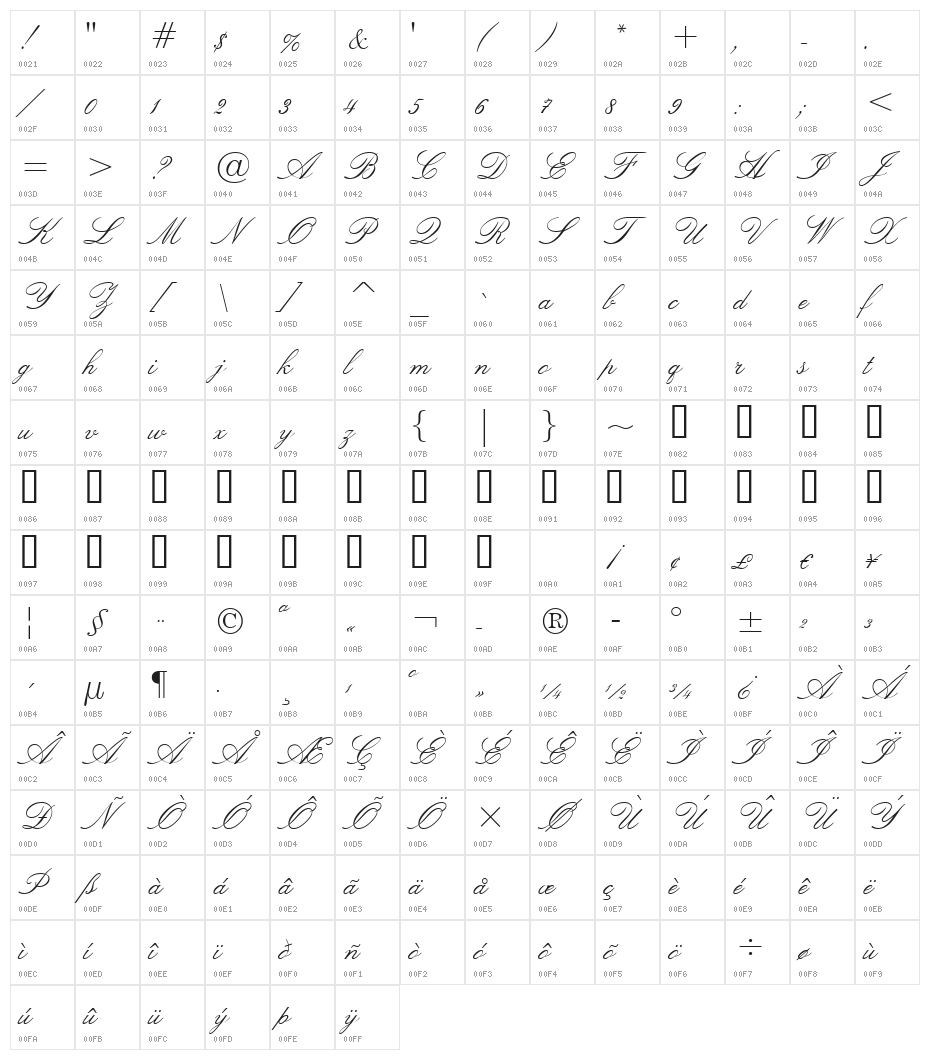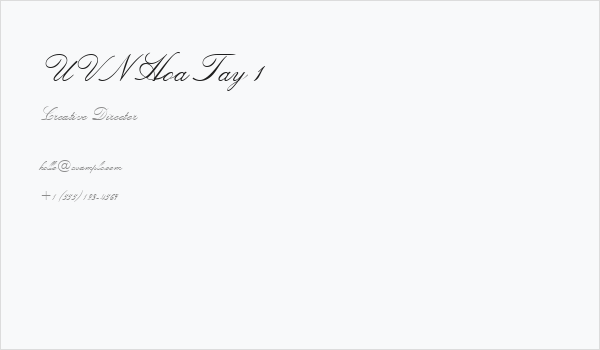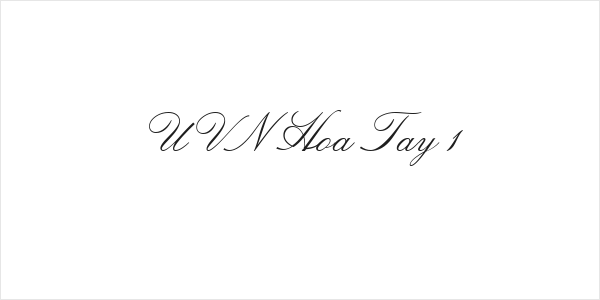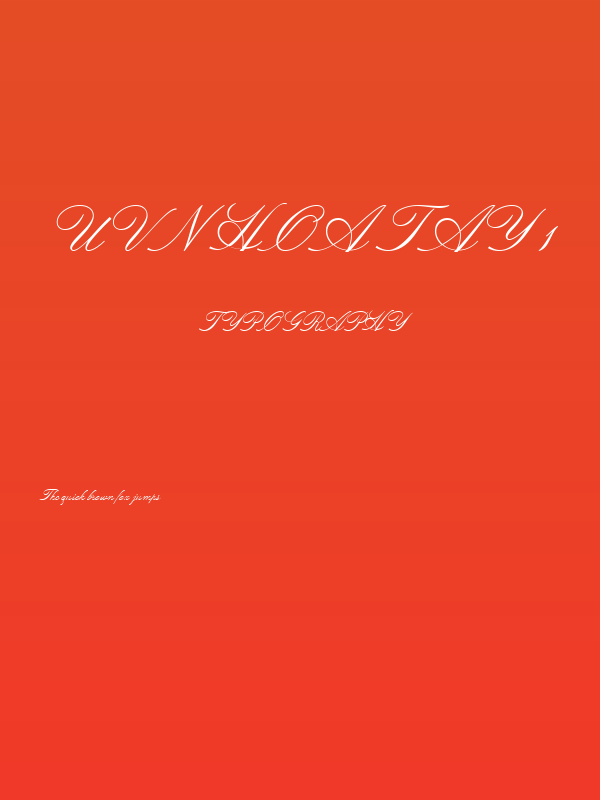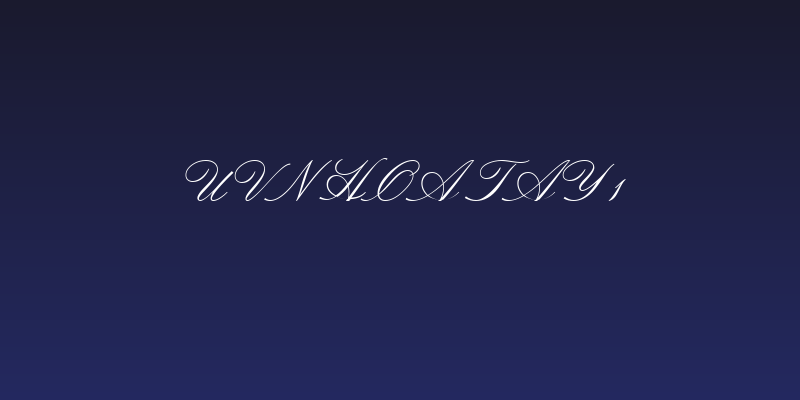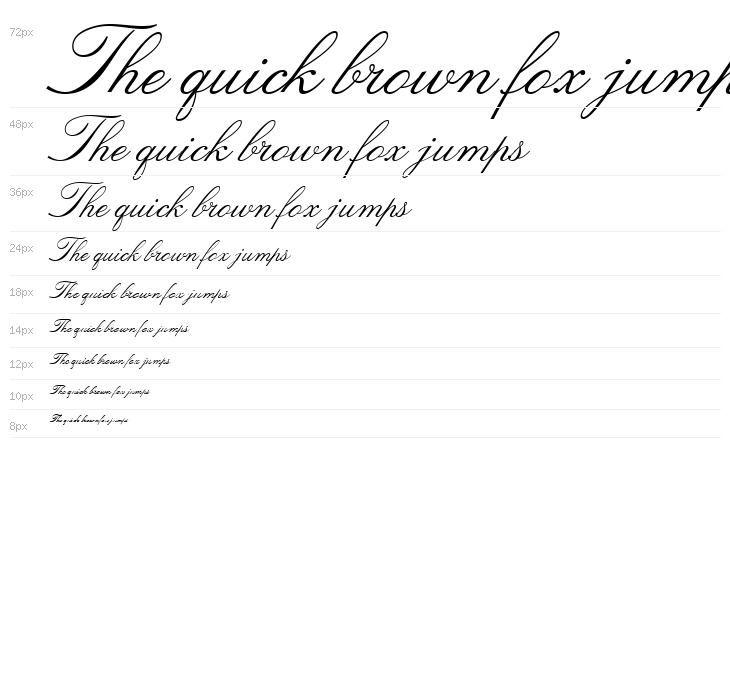
UVN Hoa Tay 1 Font
UVN Hoa Tay 1 Description
This elegant script font features a flowing, cursive style with delicate, interconnected letters. The uppercase characters are ornate and sophisticated, with sweeping curves and flourishes that give a sense of movement and grace. The lowercase letters maintain a consistent slant and are designed to seamlessly connect, enhancing the fluidity of the text. Numbers and special characters are crafted with the same attention to detail, ensuring a cohesive look across all elements. The font's thin strokes and high contrast between thick and thin lines add to its refined appearance, making it ideal for formal and decorative applications.
| Overall Style | Elegant, Decorative |
| Use Case | Headlines, Invitations, Branding |
| Proposed Projects | Ideal for wedding invitations, elegant branding, greeting cards, and decorative headings. |